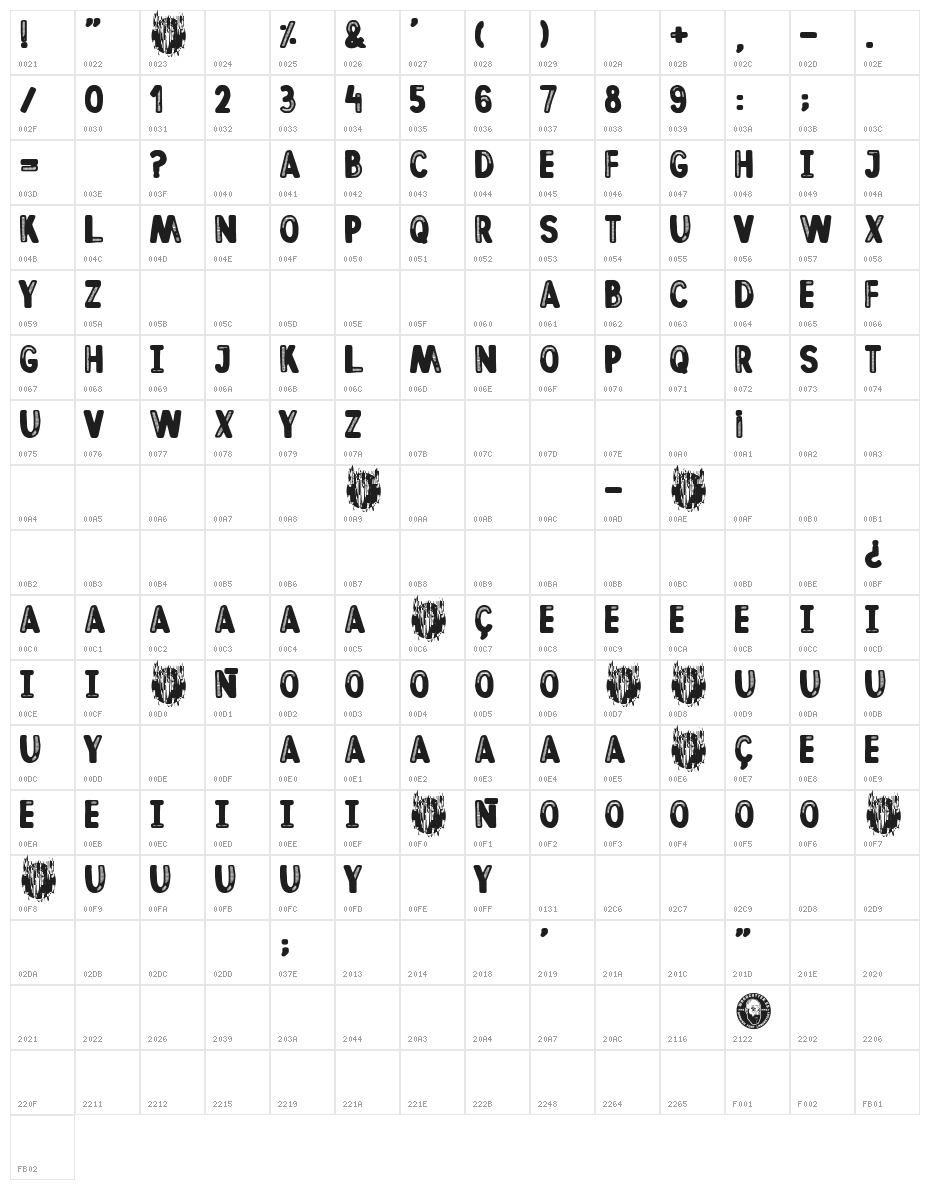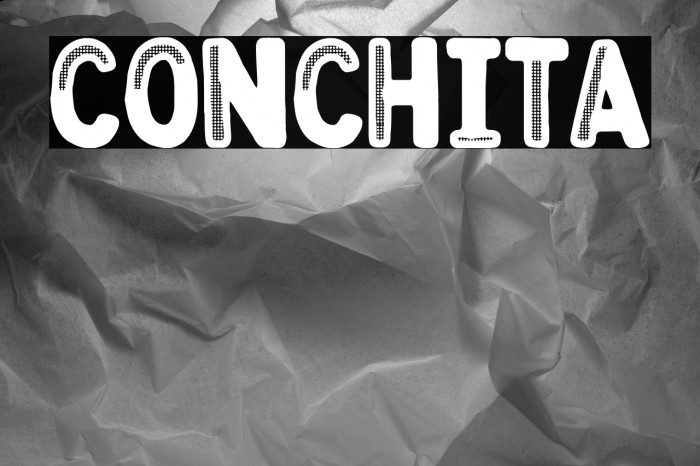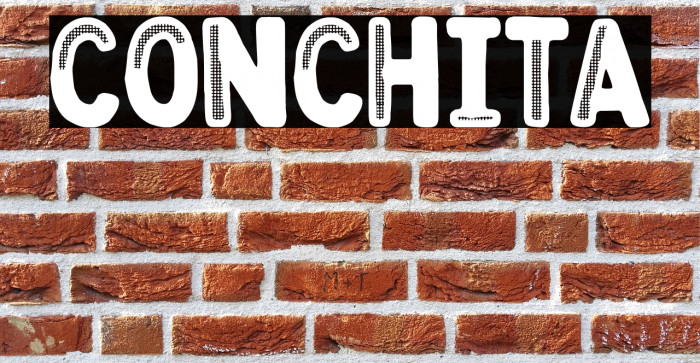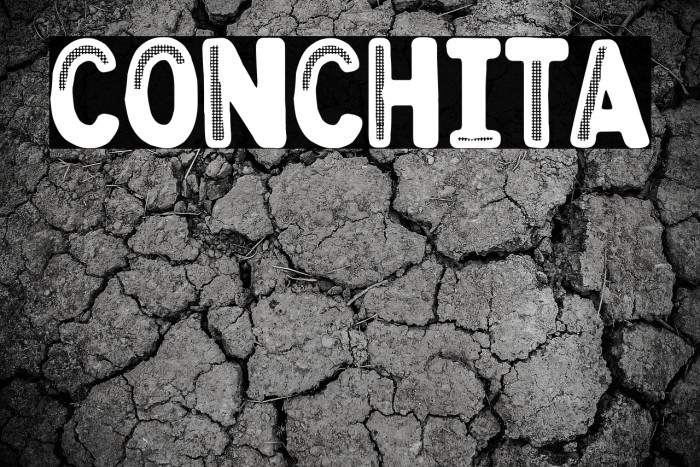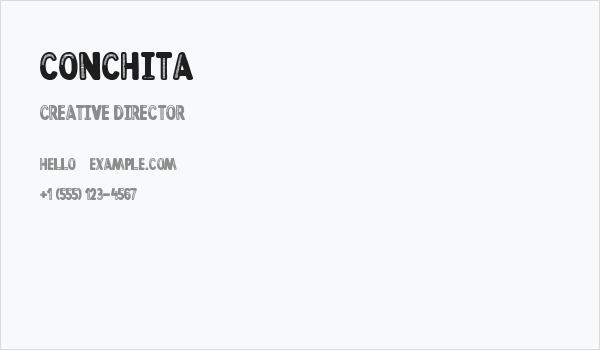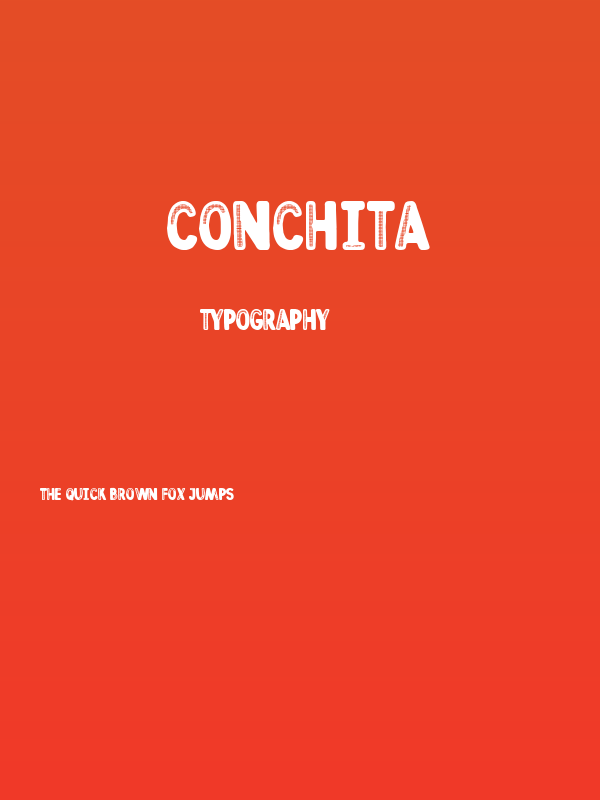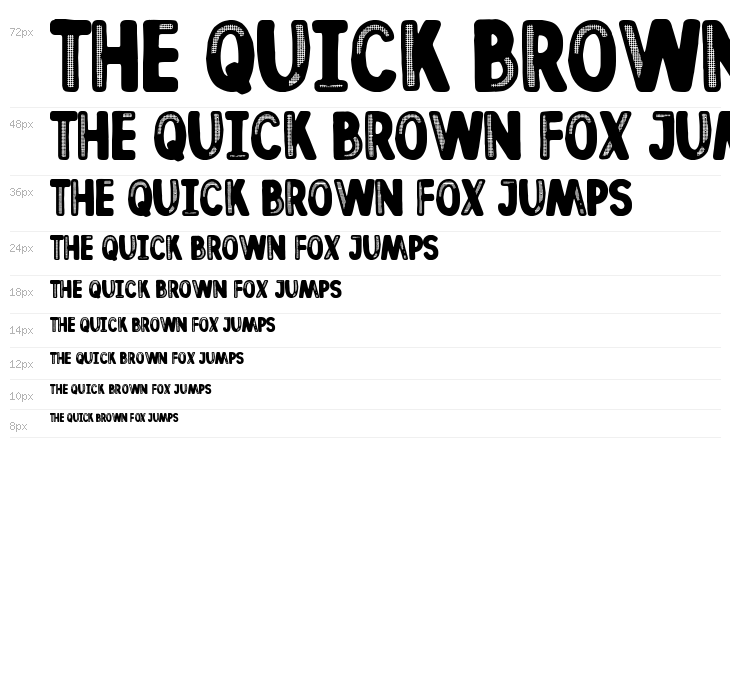
Conchita Font
Conchita Description
This font features a bold and playful design with a unique textured pattern inside each character, giving it a distinctive and eye-catching appearance. The uppercase and lowercase letters maintain a consistent style, with rounded edges and a slightly condensed form. The numbers and special characters follow the same design principles, ensuring uniformity across all glyphs. The font's boldness and decorative elements make it suitable for projects that require a strong visual impact. Its playful nature suggests a casual and fun tone, ideal for creative and informal applications.
| Overall Style | Playful, Decorative |
| Proposed Projects | Ideal for posters, children's books, playful branding, and creative invitations. |